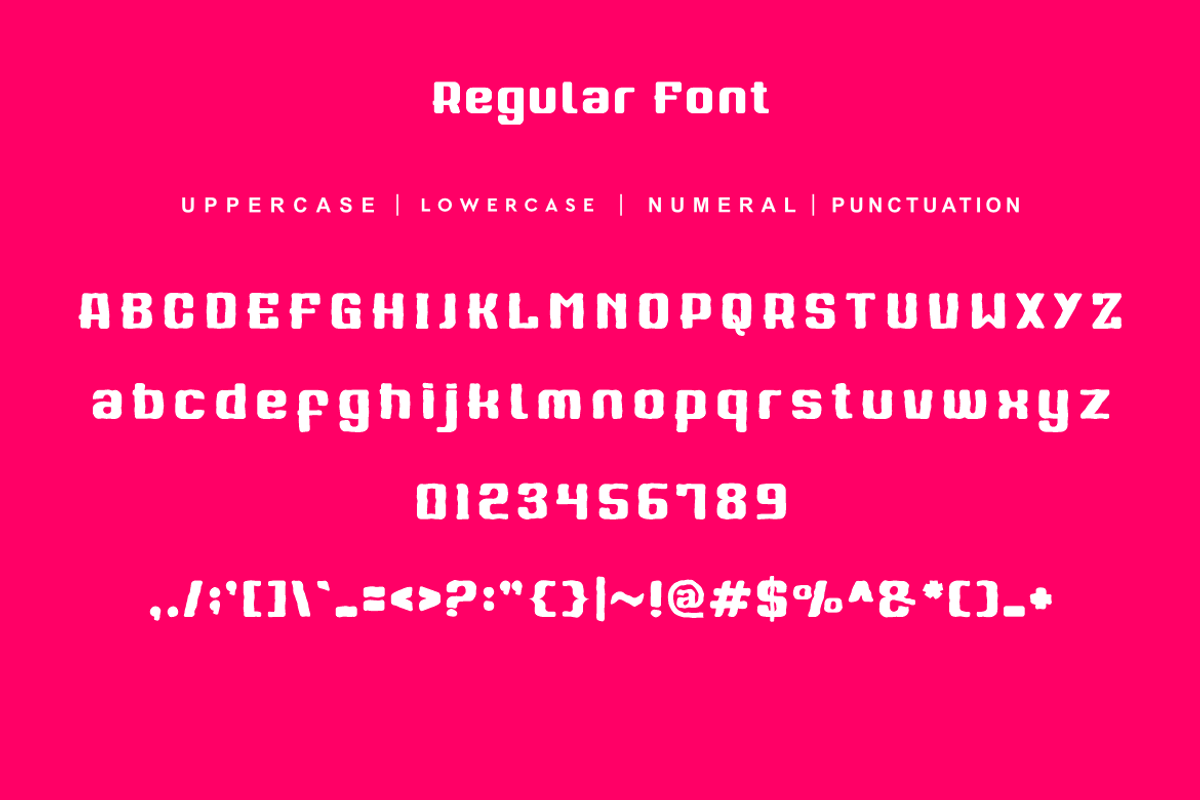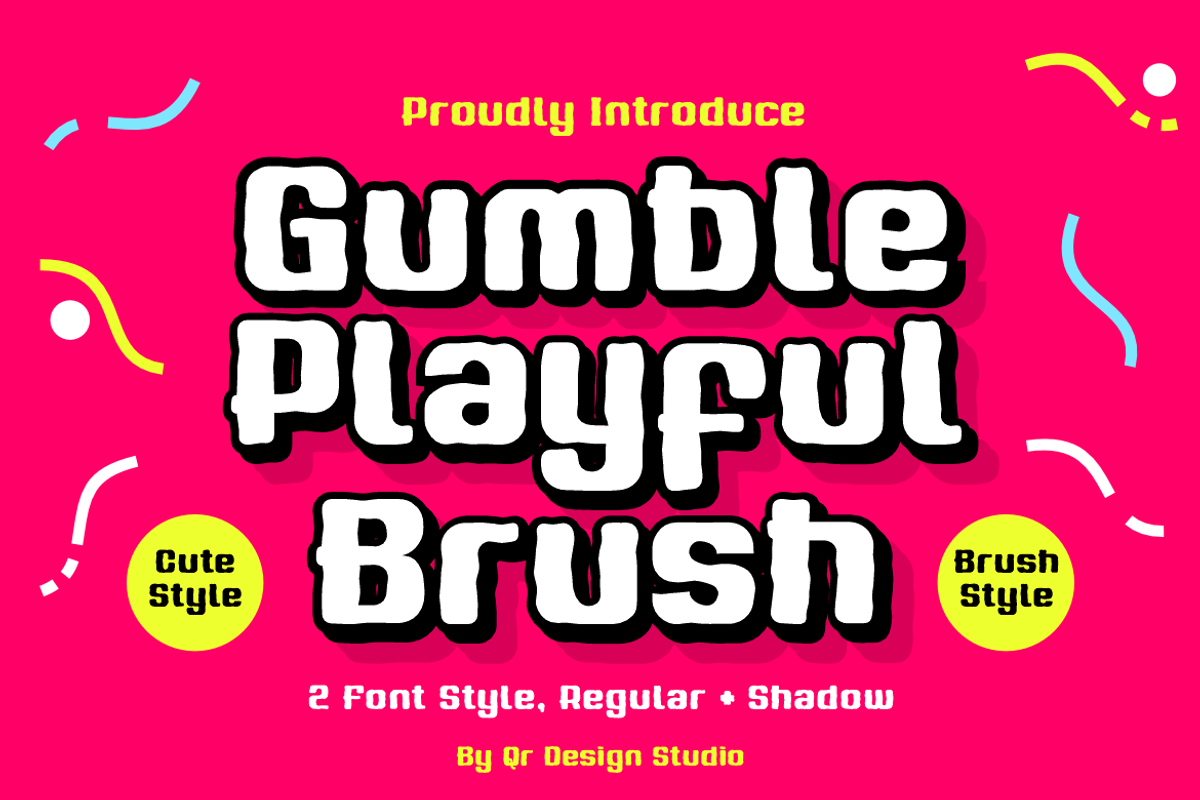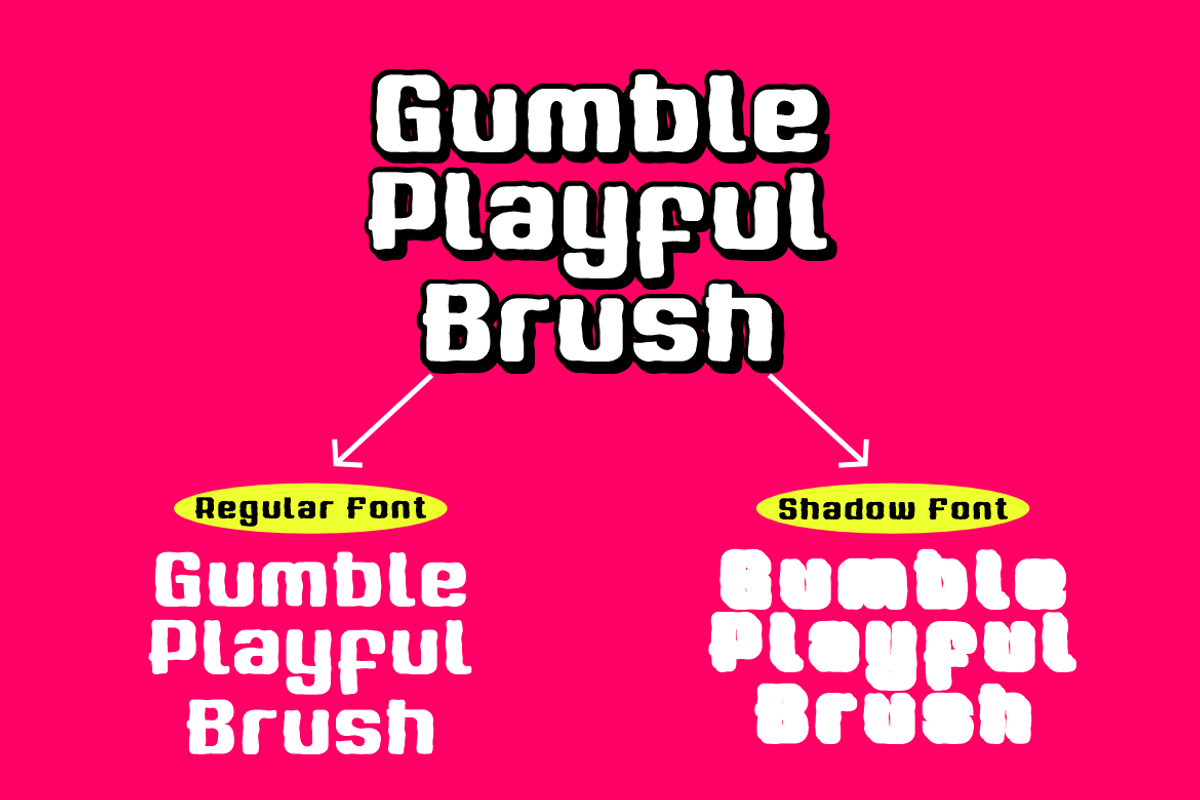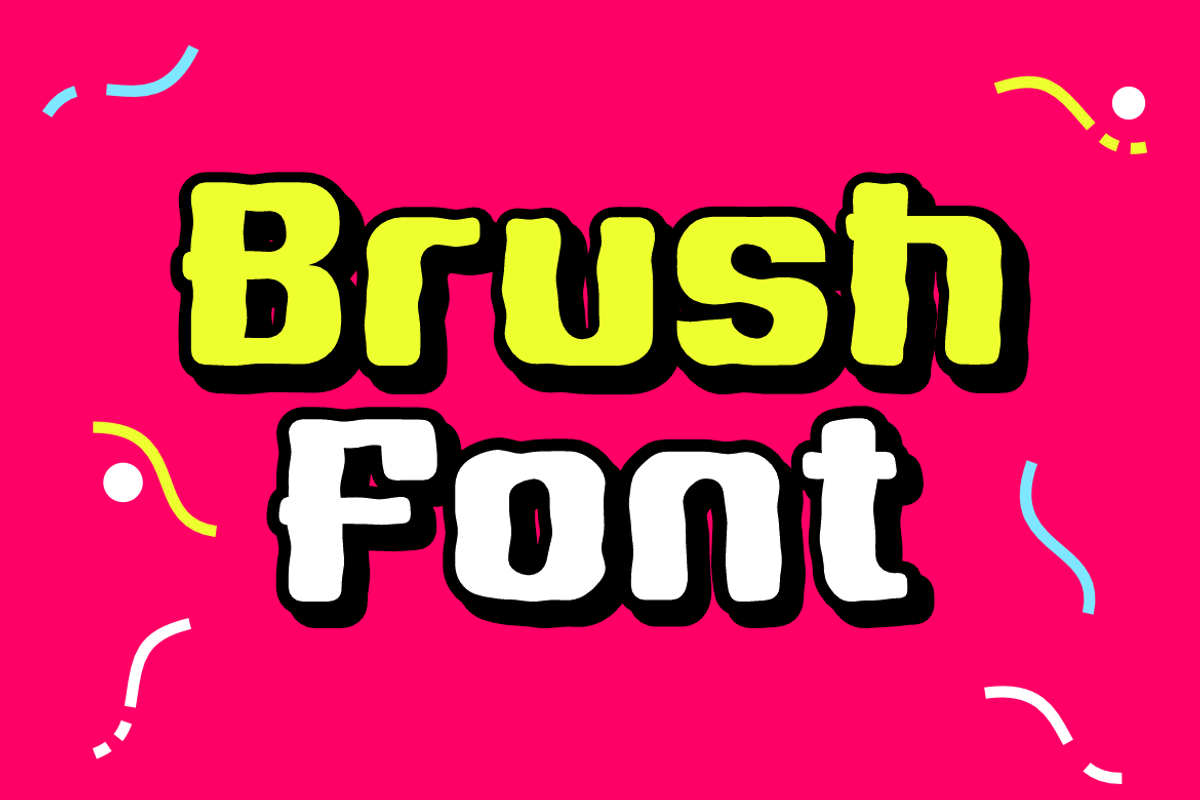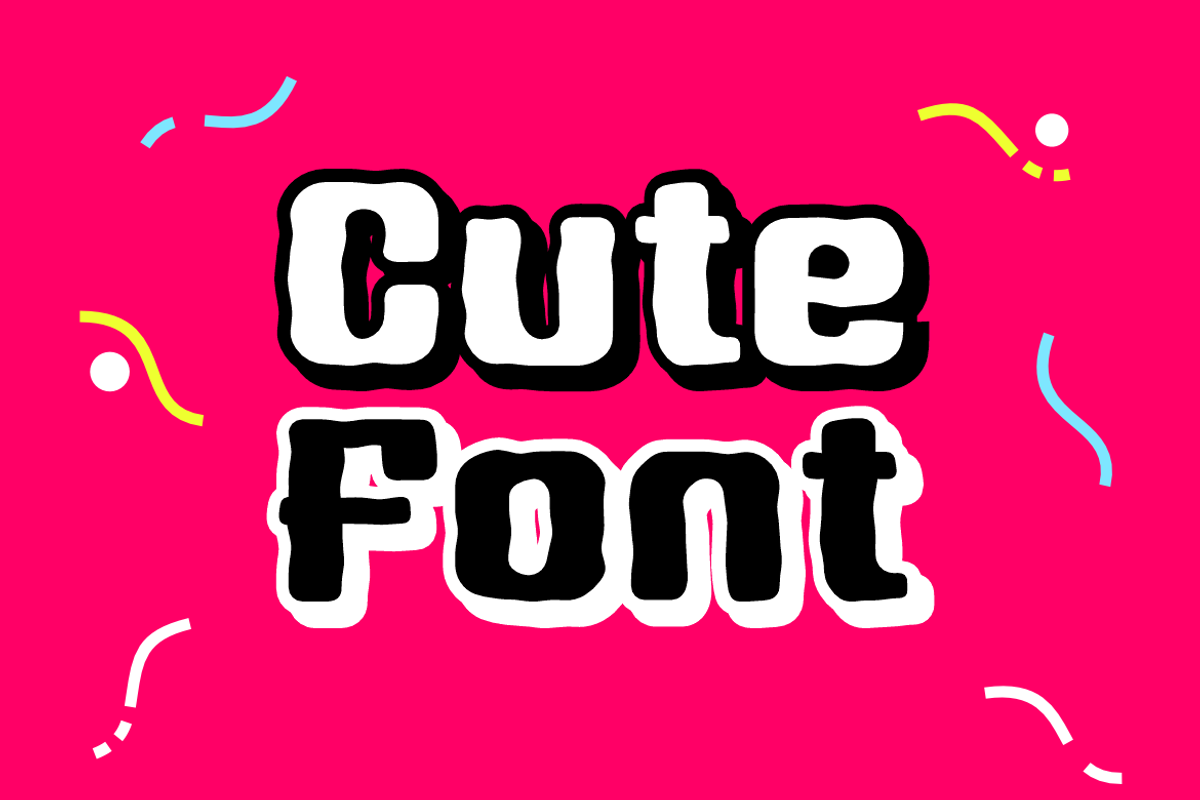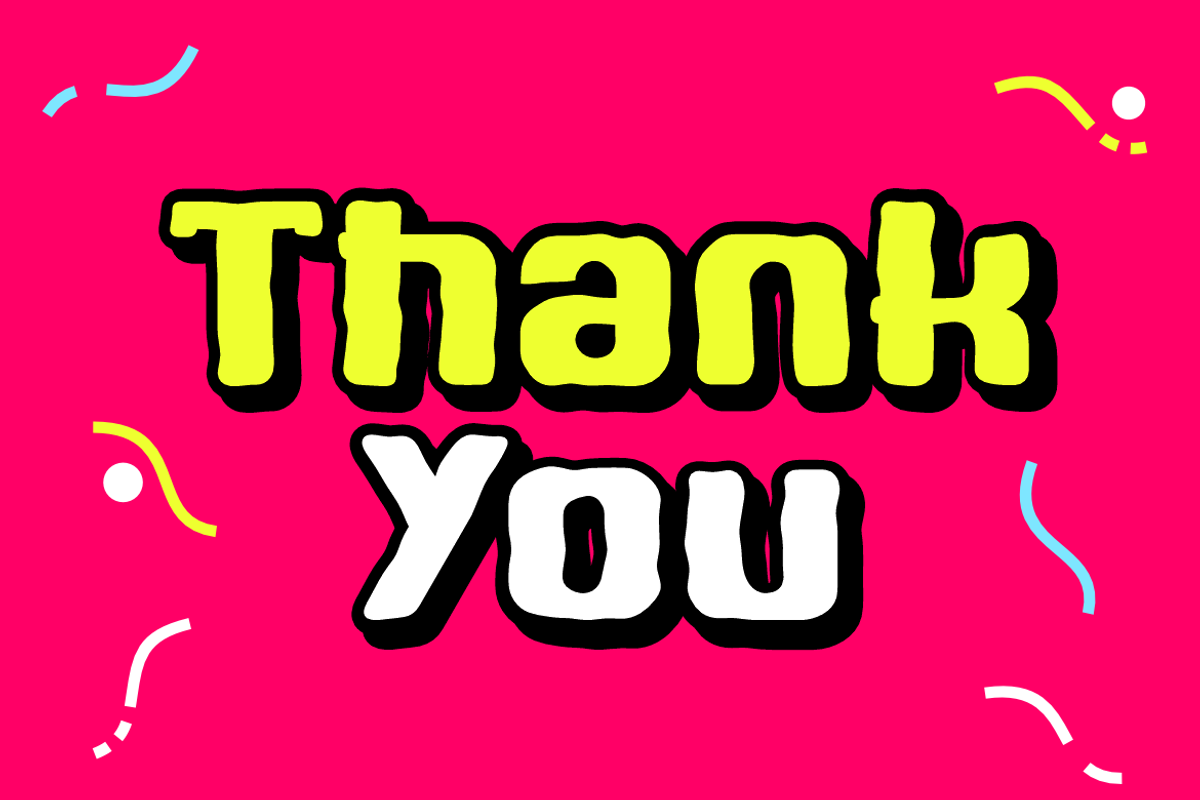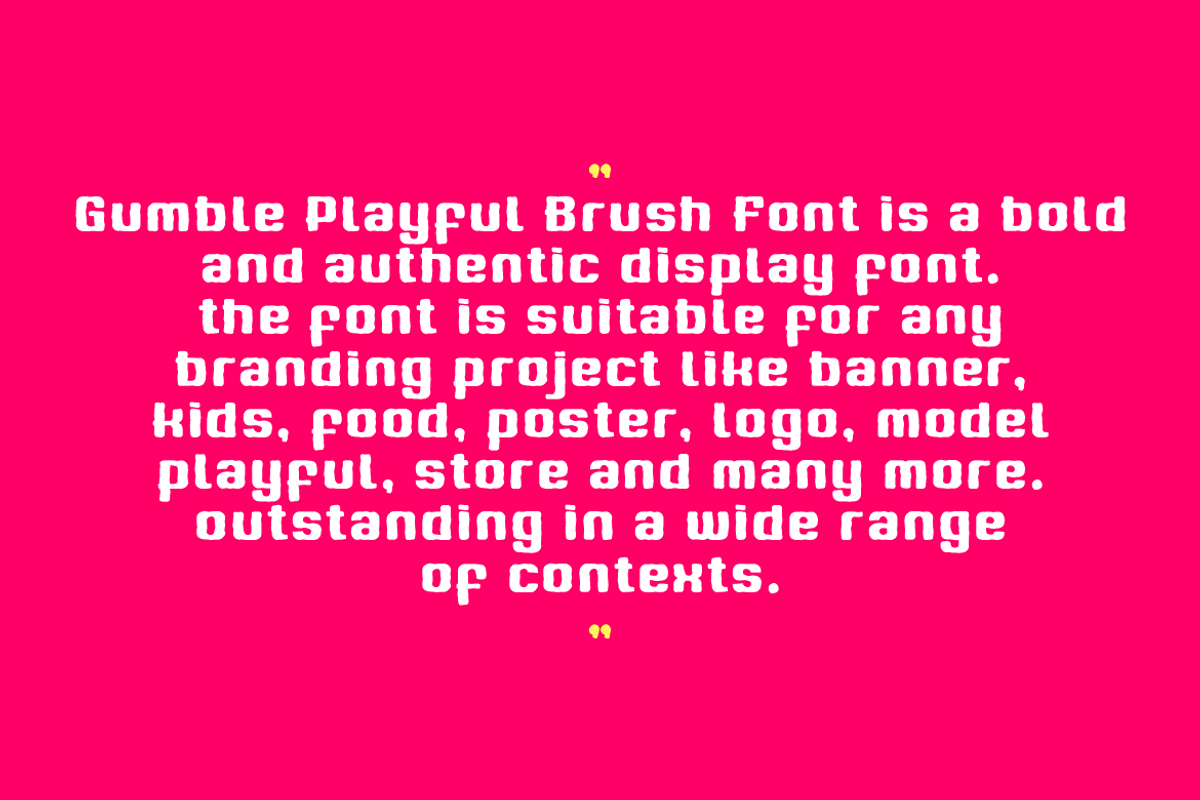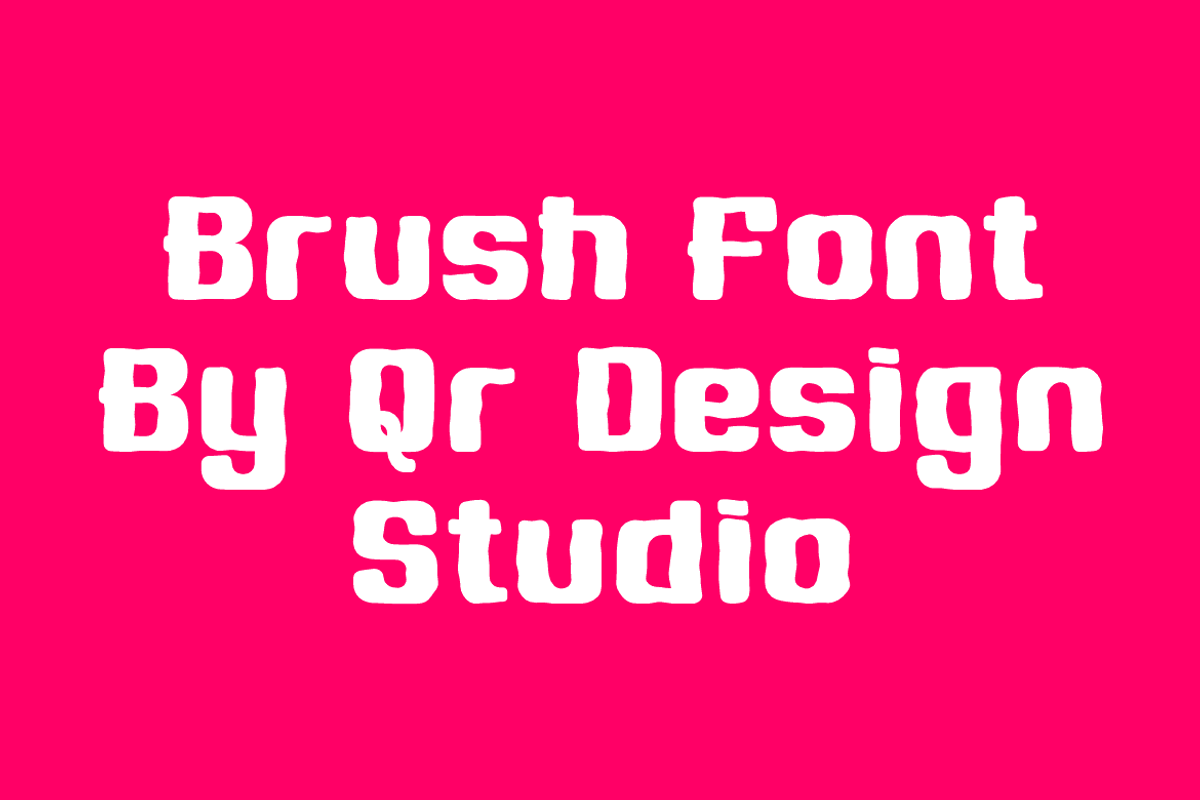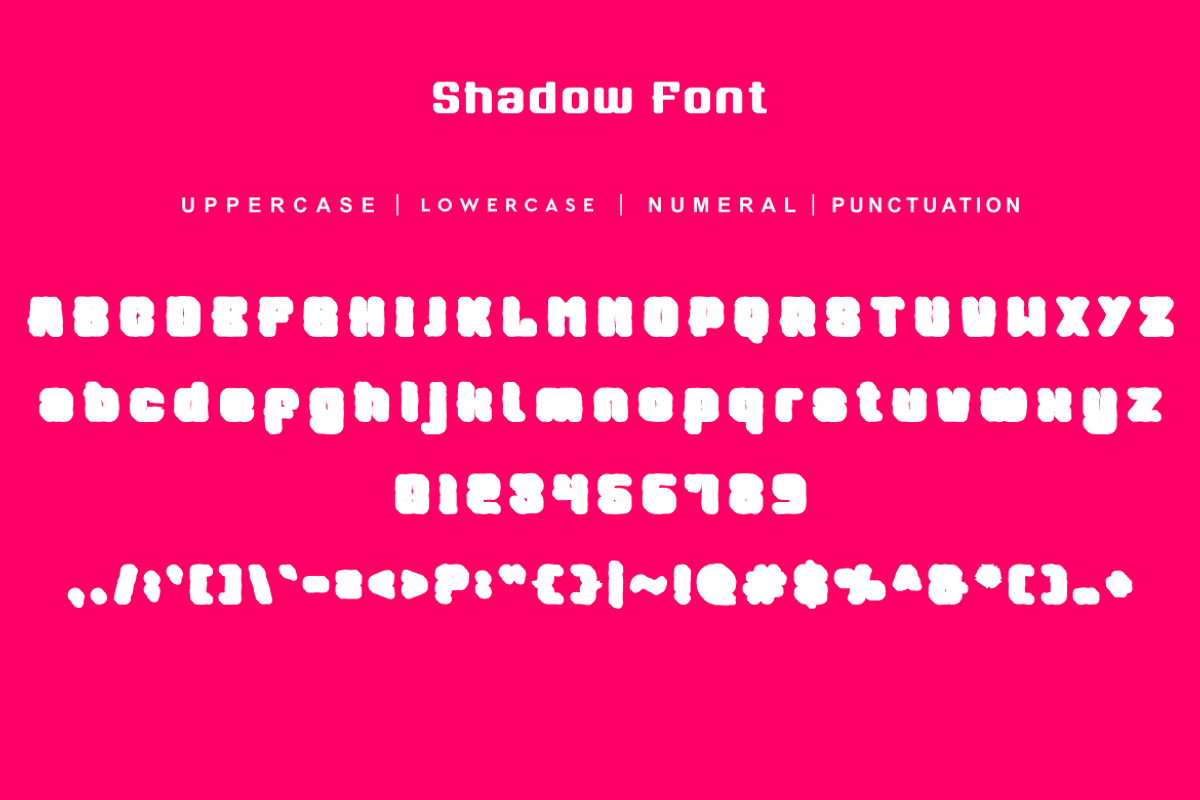
Gumble Playful Brush
Gumble Playful Brush Font is a bold and authentic display font. The font is suitable for any branding project like kids, poster, cute, food, logo, sport, and many more. Outstanding in a wide range of contexts.
Shadow